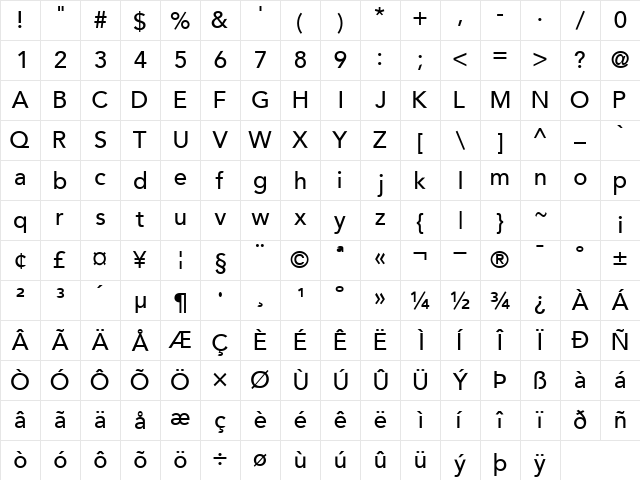
ExpoBookSSK Bold
Design Context for ExpoBookSSK
ExpoBookSSK is a composed and adaptable typeface that performs quietly and consistently across a wide range of design contexts. Its bold stroke weight gives it real presence on the page.